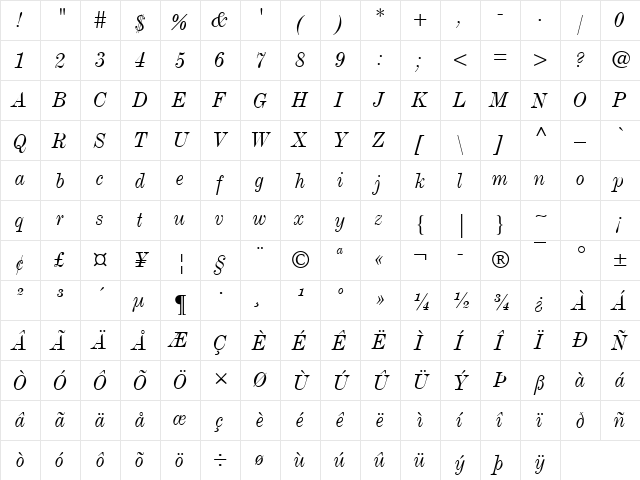
ModernMT Condensed Italic
Italic · Agfa Monotype Corporation  ·
Design Context for ModernMT Condensed Typeface
ModernMT Condensed takes a measured approach to typography — its balanced proportions and neutral character make it a reliable workhorse for both digital and print work. Its italic angle brings a sense of urgency and motion to the letterforms. Its narrow stance lets it pack a punch even in space-constrained designs.
Pro Tip: Use ModernMT Condensed for emphasis, pull quotes, and subheadings where its slanted energy can add rhythm to the layout.